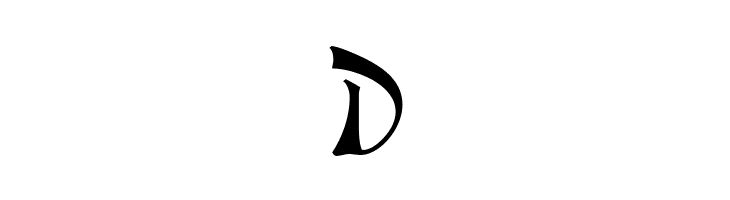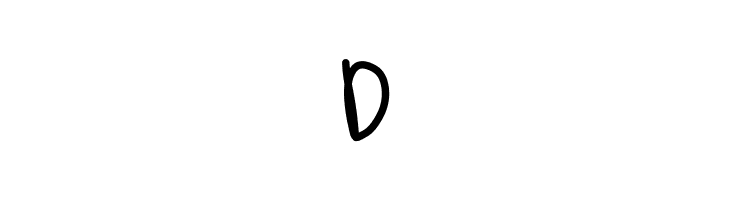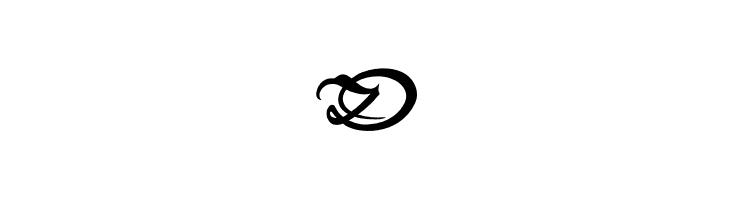
A lively and elegant script font with fluid, sweeping strokes.
A flowing, elegant script font with smooth, cursive strokes.
An elegant script font with flowing, ornate letters and decorative flourishes.
A playful, casual handwritten font with smooth, flowing lines.
An elegant script font with flowing, interconnected letters and ornate flourishes.
An elegant and ornate script font with flowing, decorative letterforms.